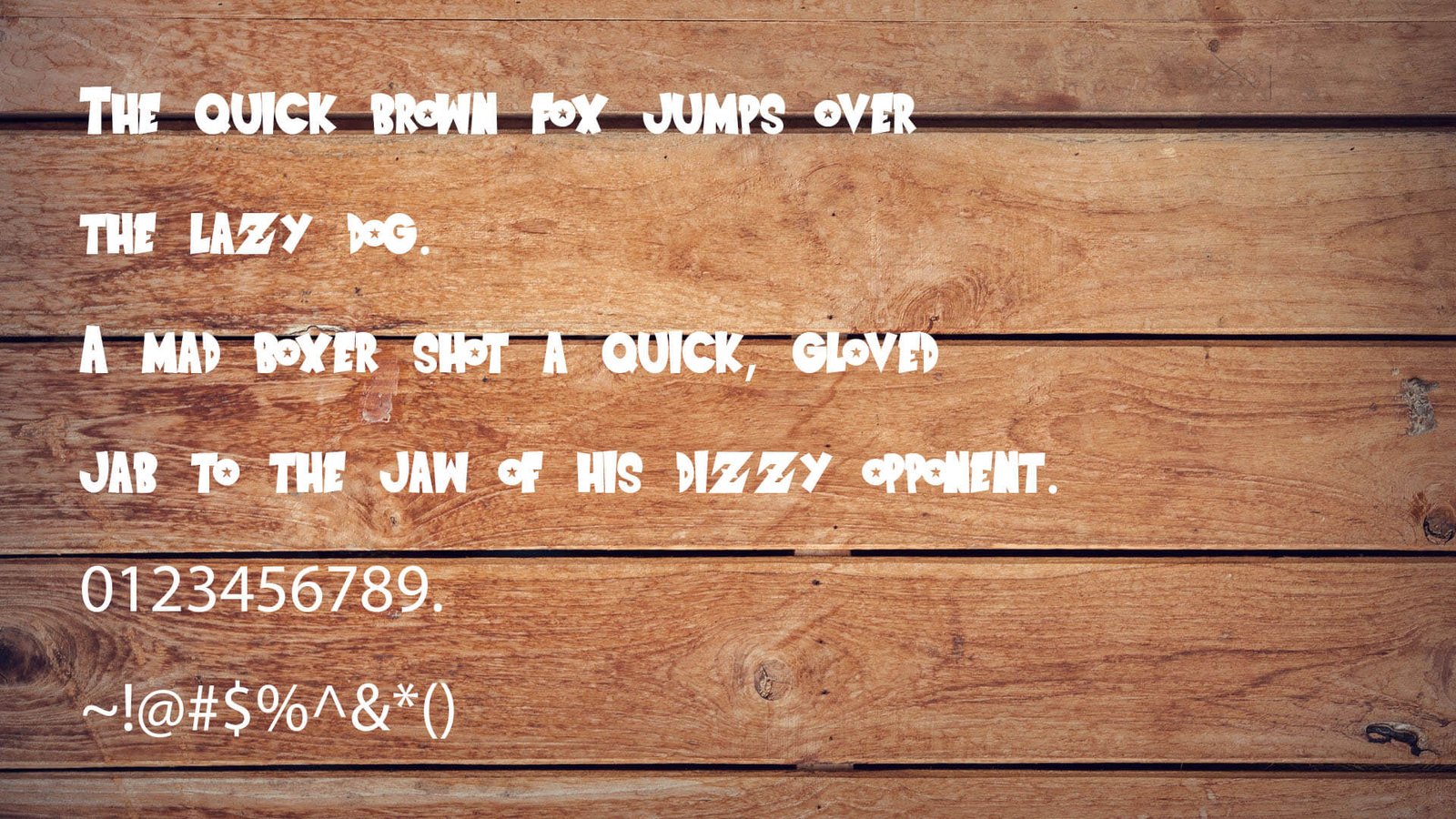
Introducing a font perfect for display purposes called the Dragon Ball Z Font. Designed by renowned font creator Ben Palme, this textured style is inspired by the popular fighting anime series DragonBallZ.
Dragon Ball Z Font Family
The original font that is using in the cartoon series is Saiyans Sans Pro. This font style contains strong and bold appearances. This font style comes in two styles.